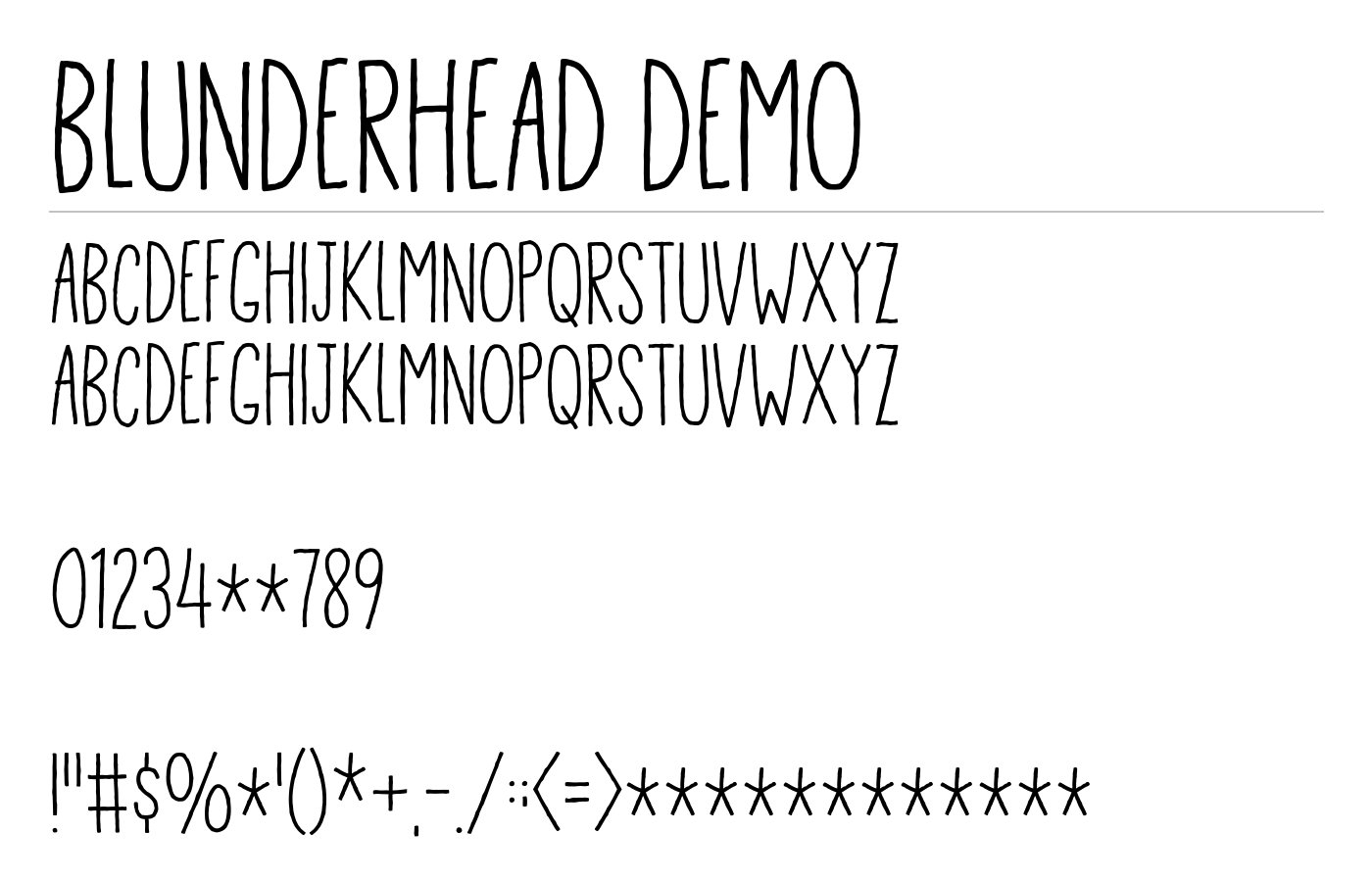
Blunderhead DEMO is a tall, narrow sans serif font with a hand-drawn, slightly whimsical feel. Its irregular strokes and uneven letterforms give it a casual, playful personality, making it ideal for creative projects, informal branding, or quirky headlines where a unique, approachable tone is desired. This font works best in display sizes, adding charm and character to posters, invitations, or children's content.
Blunderhead DEMO Font
About Blunderhead DEMO Font
| Font family | Blunderhead DEMO Font |
| Designer | Jakob Fischer / pizzadude.dk |